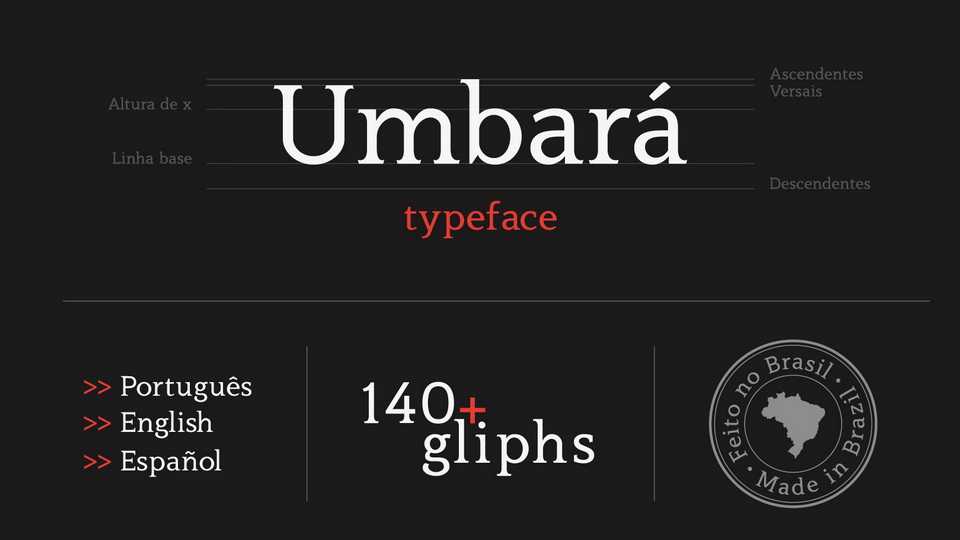
Download Umbará font, an original serif reading typeface, inspired by the old Umbará neighborhood of Curitiba, Brazil. The font comprises more than 140 glyphs in the basic latin writing system, mainly supporting the Portuguese, English and Spanish languages.
Designer: Marcus Nakamura